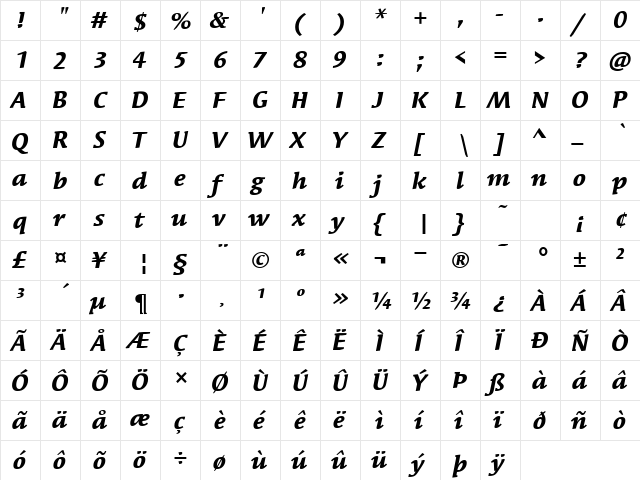
Design Context for SyndorITC Typeface
SyndorITC offers clean, dependable letterforms without strong stylistic allegiance, making it a practical choice for designers who need flexibility. The dynamic lean of this cut emphasises speed and emphasis in any layout. Its bold stroke weight gives it real presence on the page.
Pro Tip: Try SyndorITC for annotation and caption copy alongside an upright companion — the contrast in angle creates a dynamic but ordered typographic system.